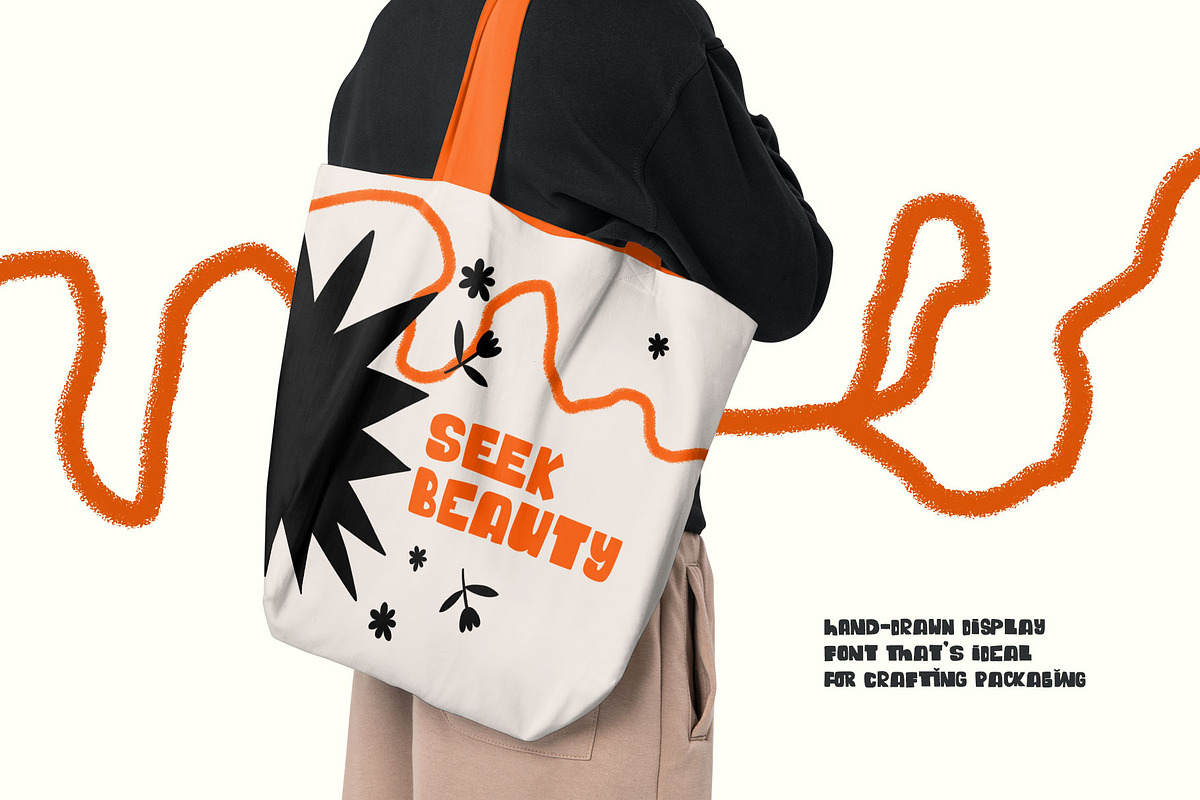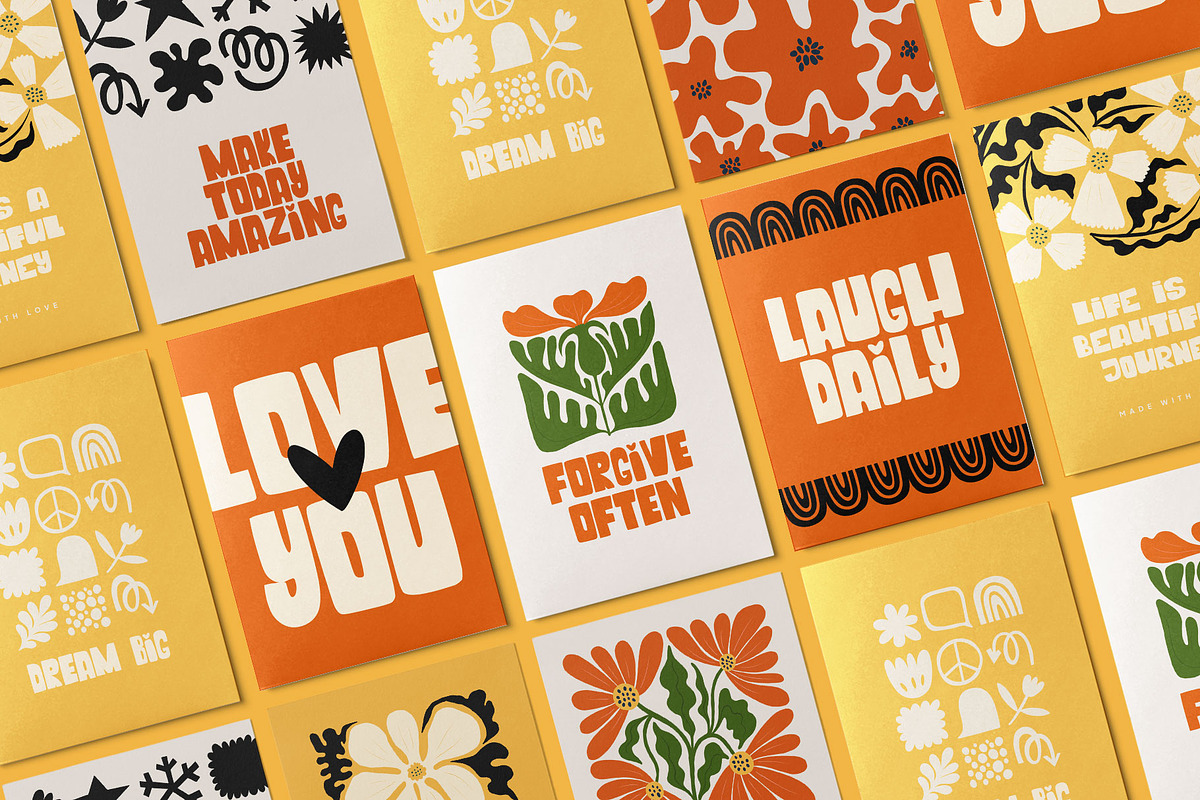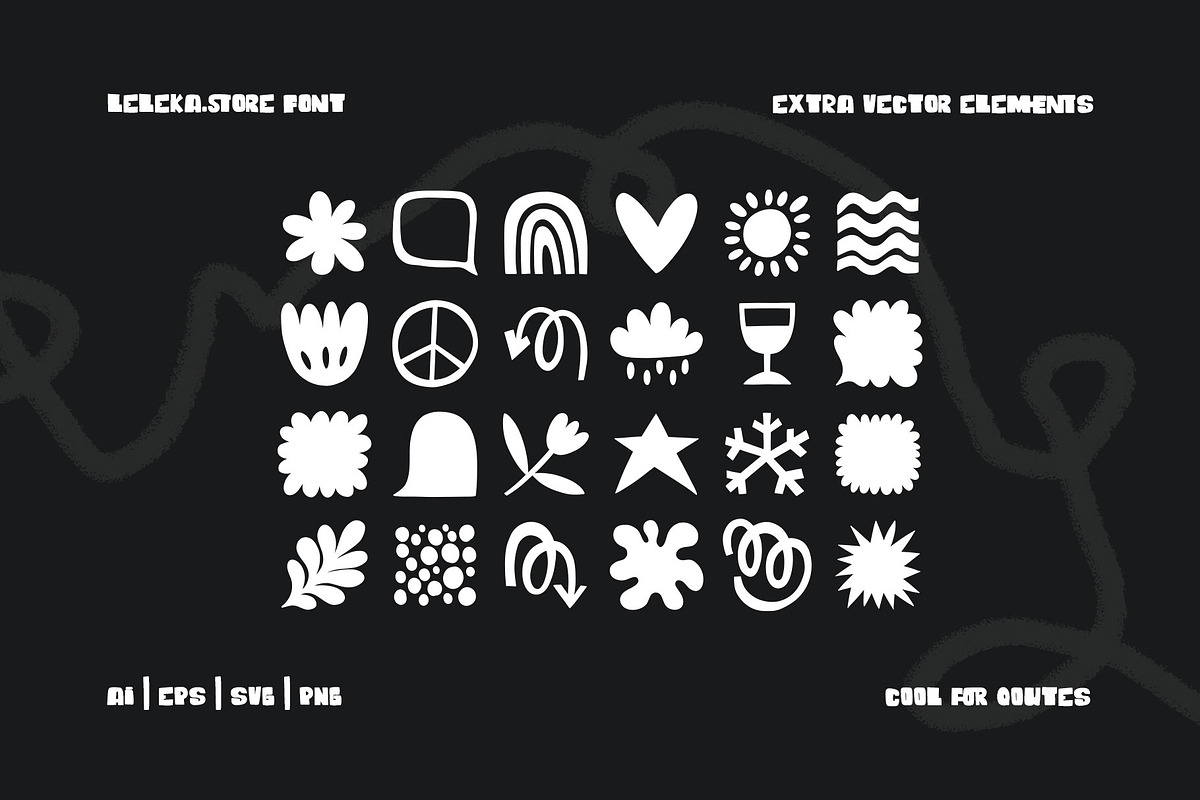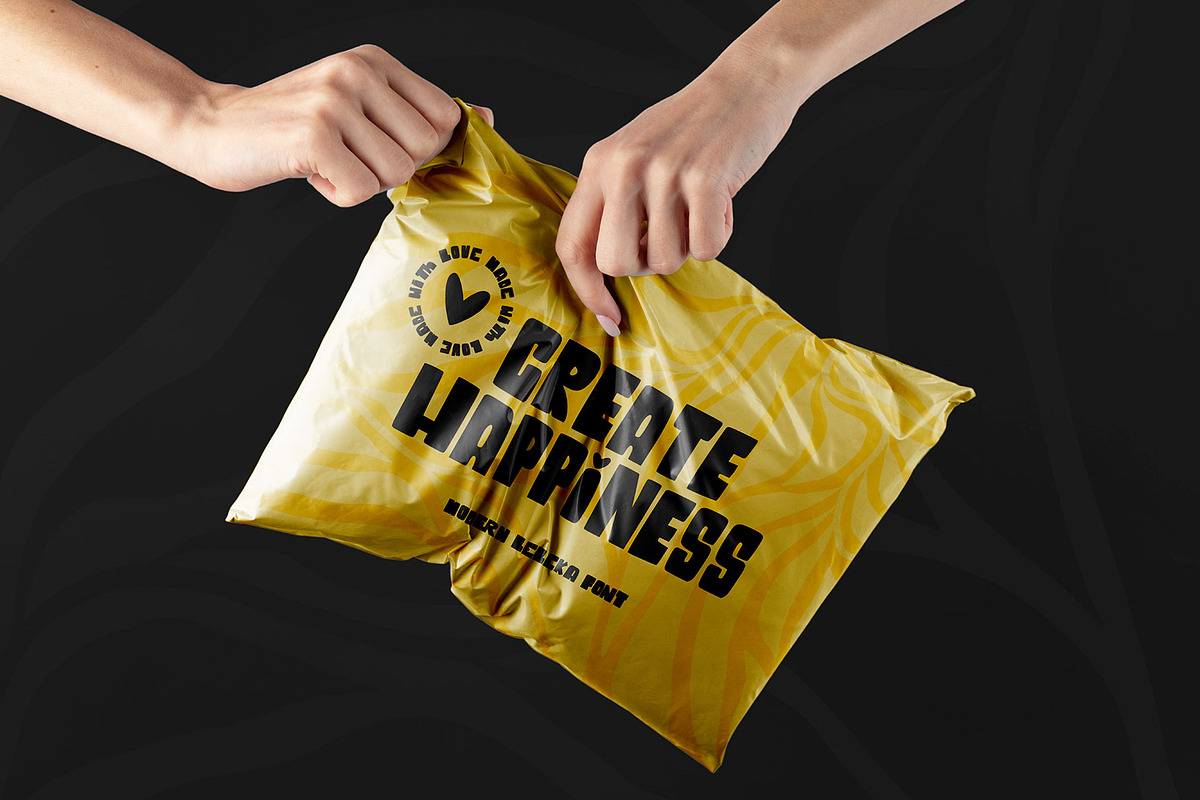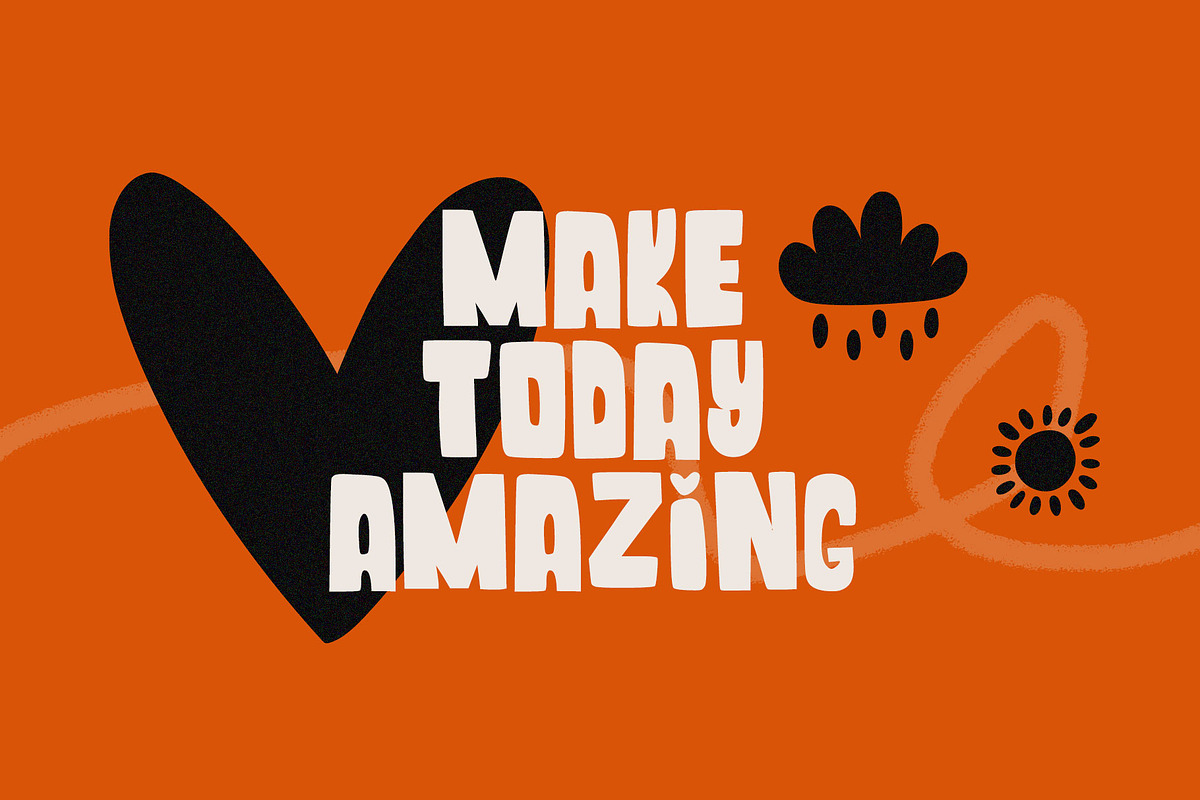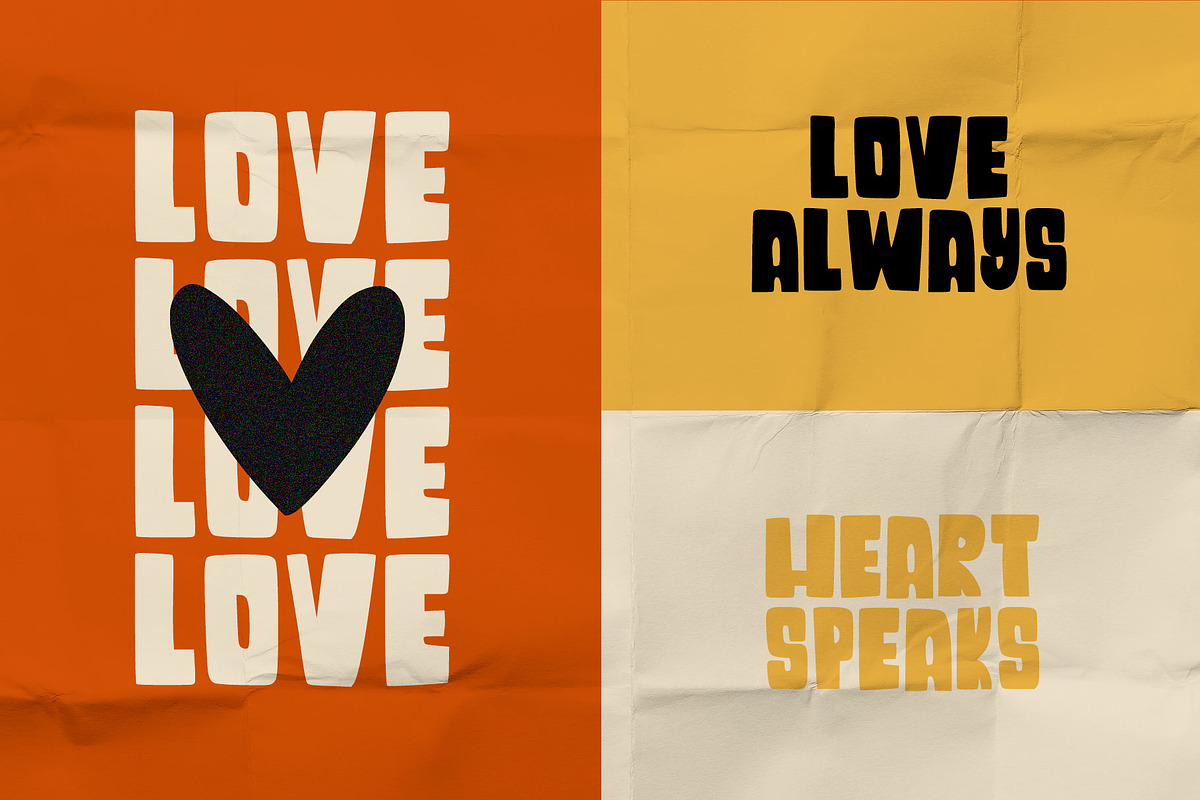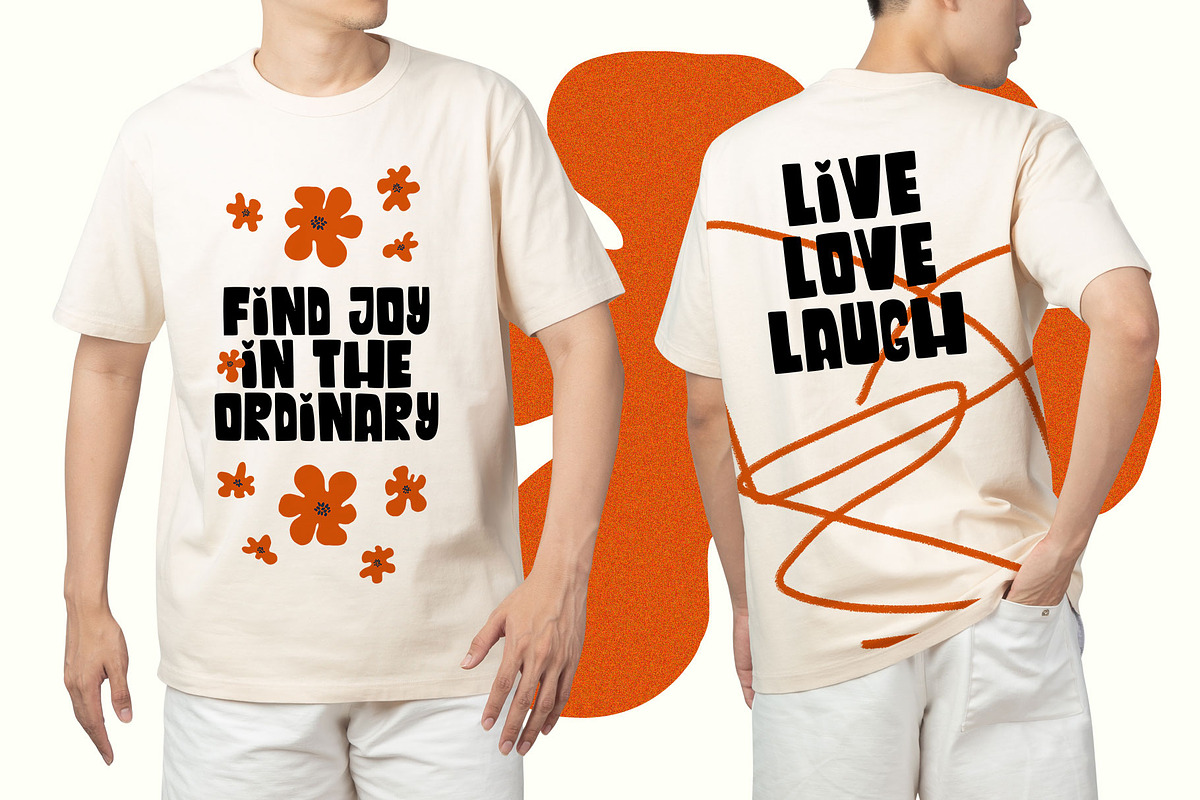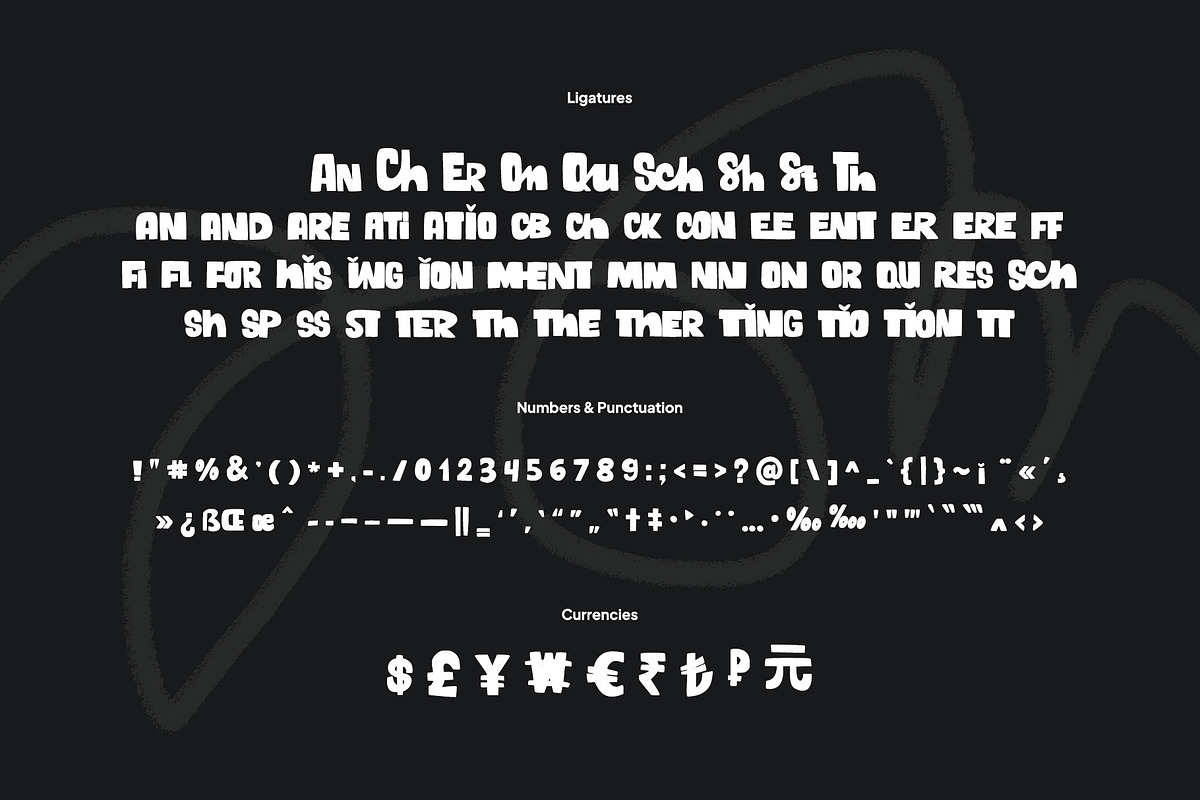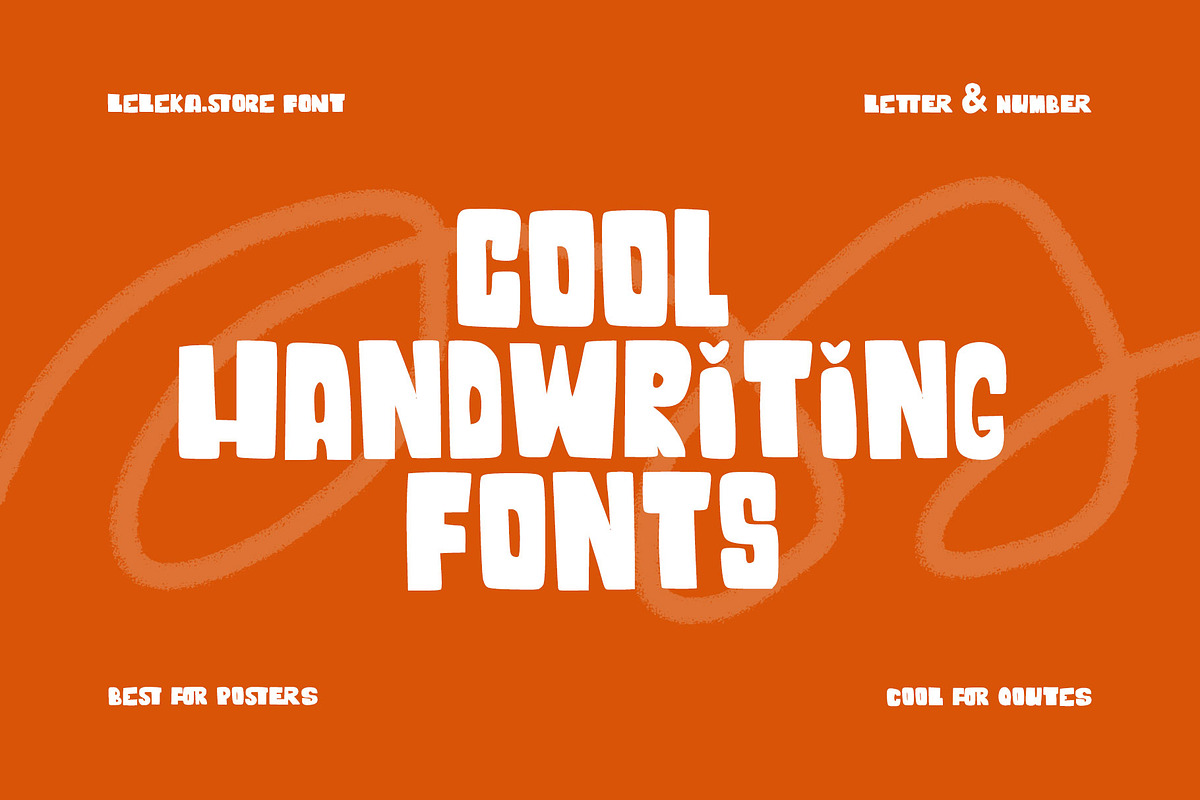
Modern Leleka | Bold Font
🌟🌟🌟Introducing Modern Leleka – a hand-drawn display font that's ideal for crafting logos, greeting cards, posters, packaging, and more! Its delightful and inviting essence adds a distinctive touch to your projects, making them truly one-of-a-kind.
- 🌟Language Support: • English • German • French • Spanish
- 🌟Ligatures and Currencies
- 🌟Uppercase and Lowercase
- 🌟Numbers and Punctuation